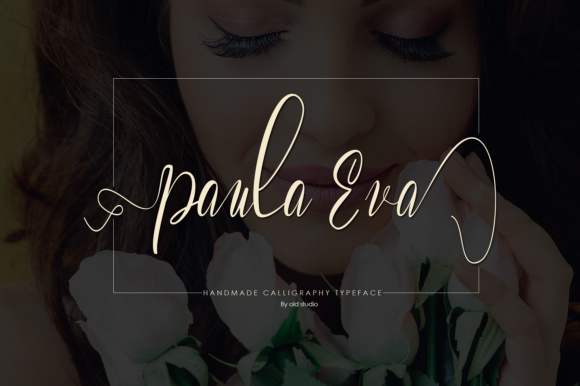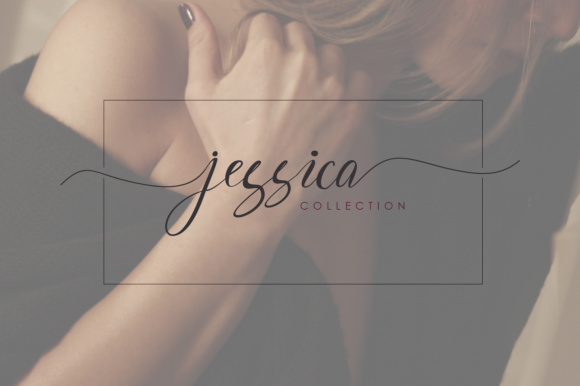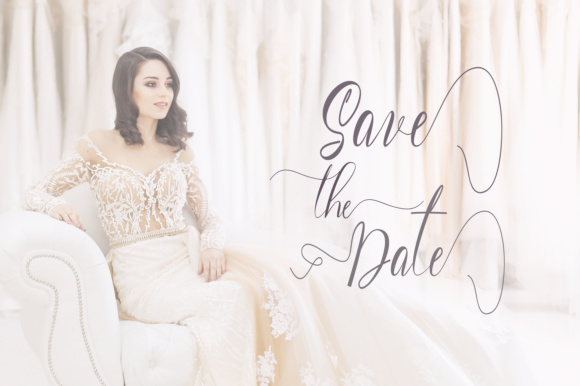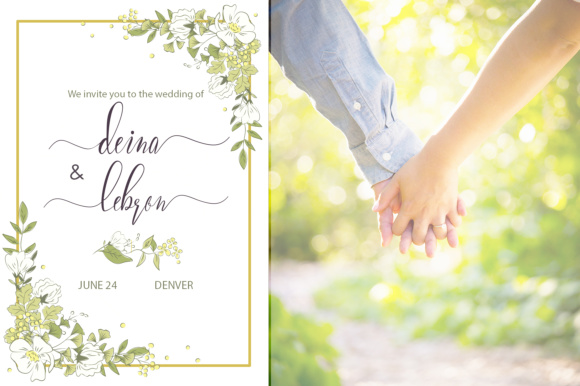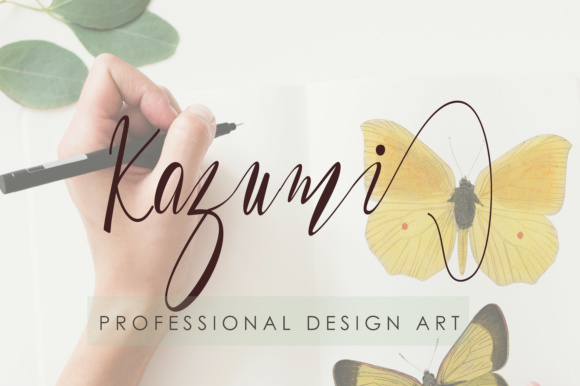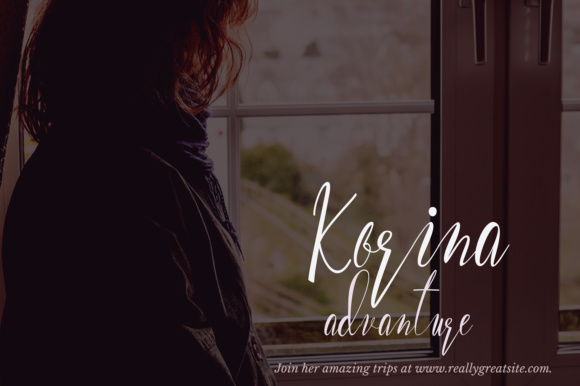
Introduction to Paula Eva Script Font
As a designer, have you ever found yourself stuck in front of a blank canvas, yearning for the perfect font to bring your creative project to life? You’re not alone. The search for that elusive, high-quality font can be a daunting task, especially when you’re working on a project that requires a unique touch. This is where Paula Eva Script Font comes in – a modern calligraphy typeface collection that’s about to become your new design resource.
Paula Eva Script Font, crafted by old_studio, is a beautiful blend of copperplate and contemporary typefaces that exudes classic elegance. With its stunning alternates and versatility, this font is a game-changer for designers who want to elevate their work. And the best part? It’s available for free download, making it an accessible addition to your design arsenal.
Key Features of Paula Eva Script Font
- High-quality, hand-drawn design ideal for creative projects, making it a valuable design resource.
- Features a beautiful, elegant script style with a transparent background, perfect for adding a touch of sophistication to your designs.
- Supports various languages, making it a versatile font for international design projects.
Honest Review: Paula Eva Script Font
I recently came across the Paula Eva Script Font and I have to say, I’m quite impressed. This beautiful script font is a great addition to any design resource, perfect for adding a touch of elegance to your creative project.
- High-quality design that’s both modern and sophisticated
- Transparent background makes it easy to use with any background image
While the Paula Eva Script Font is an excellent choice for many projects, I did notice a few limitations:
- ⚠️ Limited font sizes, which may require some creative workarounds for larger or smaller text
- ⚠️ Not all characters are available, which may cause issues with certain words or phrases
Overall, I’m a big fan of the Paula Eva Script Font. It’s a high-quality design resource that’s perfect for adding a touch of elegance to your creative project. While it may have some limitations, I believe it’s well worth the free download price.
To get the most out of the Paula Eva Script Font, try the following:
- Use a transparent background to create a seamless design.
- Combine the font with other high-quality design resources for a professional look.
The Paula Eva Script Font is commonly used in:
- Birth announcements and baby shower invitations.
- Business cards and marketing materials.
Comparison to Paula Eva Script Font: Carolyna Pro has a more modern and sophisticated feel, while Paula Eva Script Font has a softer, more vintage look. Both fonts can be used for creative projects, but Carolyna Pro is ideal for more formal designs.